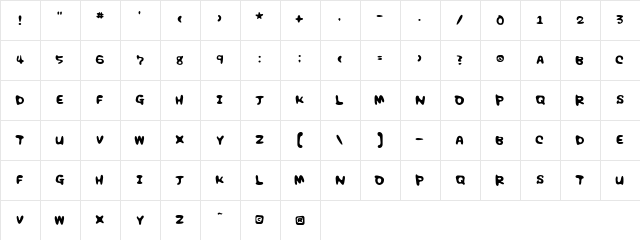
chocolate syrup Bold
Design Context for chocolate syrup Typeface
chocolate syrup is a composed and adaptable typeface that performs quietly and consistently across a wide range of design contexts. Its bold stroke weight gives it real presence on the page.